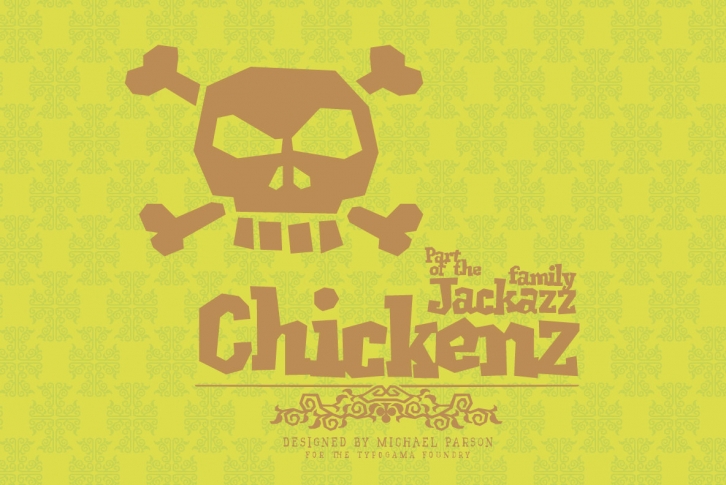
The Chickenz dingbat font is a series of symbols based inspired by the wild west, from cowboy silhouettes and playing cards to a series of office shapes that can be used in any corporate layout.